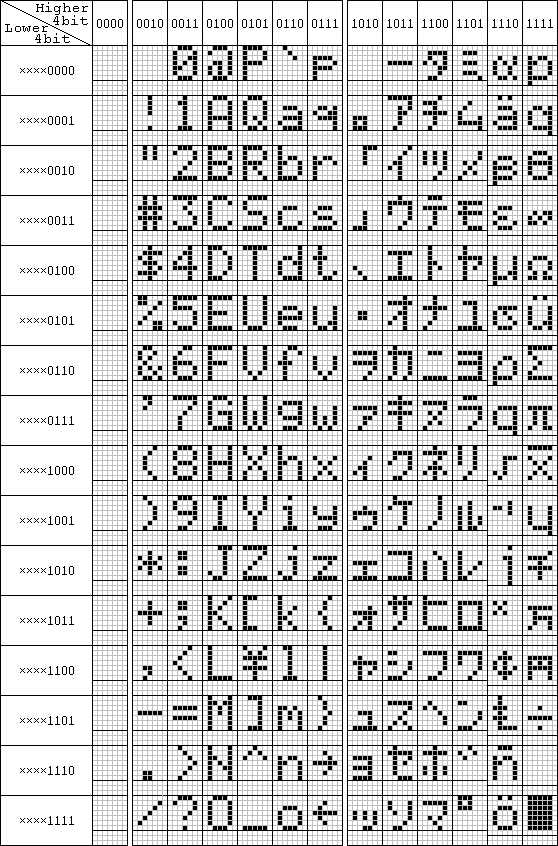
• Faithful recreation of LCD's font. Supports all base and accented Latin, Greek, Cyrillic a subset of non-Latin symbols, few emojis and all basic matematical symbols. Fixes few pixel inconsistencies and adds some additional characters that are otherwise missing.
Cool LCD font
in the image, the baselines on the 1110xxxx and 1111xxxx columns are shifted down by 1 brick
All 864 Glyphs in LCD